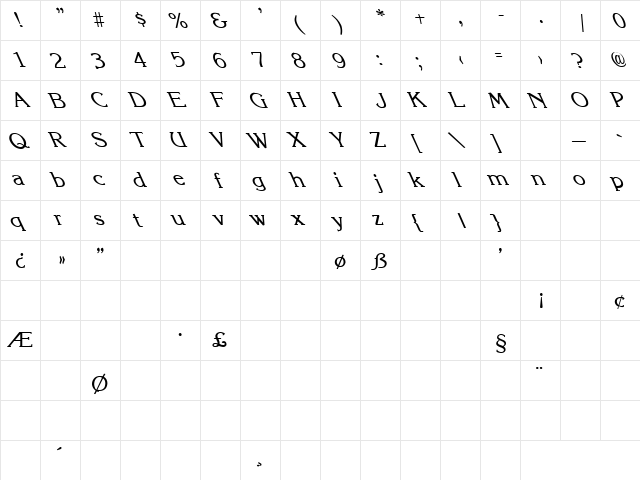
Moving Out 2 Regular
Design Context for Moving Out 2 Typeface
Moving Out 2 offers clean, dependable letterforms without strong stylistic allegiance, making it a practical choice for designers who need flexibility.